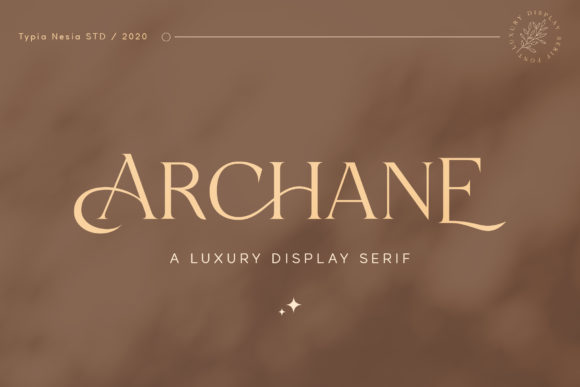
Looking for the perfect font to elevate the look of your website's title? Look no further than Archane Font! Created by the talented team at Typia Nesia, this elegant and luxurious serif font is sure to impress.
Archane Font is the best font for website titles, thanks to its eye-catching look and versatility. Its timeless design is perfect for use in branding, editorial design, magazines, stationery, blogs, and more! Whether you're creating a website for a business, a personal blog, or anything in between, Archane Font is the perfect choice.
But Archane Font isn't just visually stunning - it's also incredibly easy to use. Its clean lines and simple design make it a breeze to read, while its bold weight and sharp serifs give it an air of sophistication and elegance. With Archane Font, your website's title will truly stand out from the crowd.